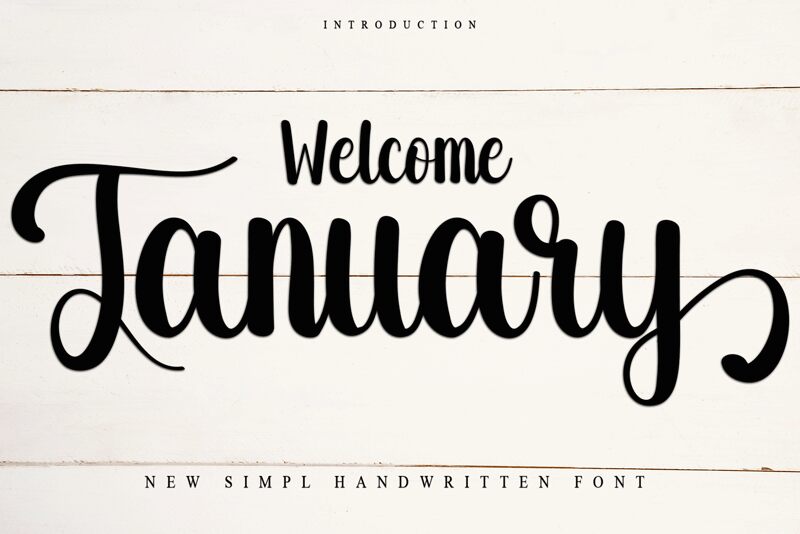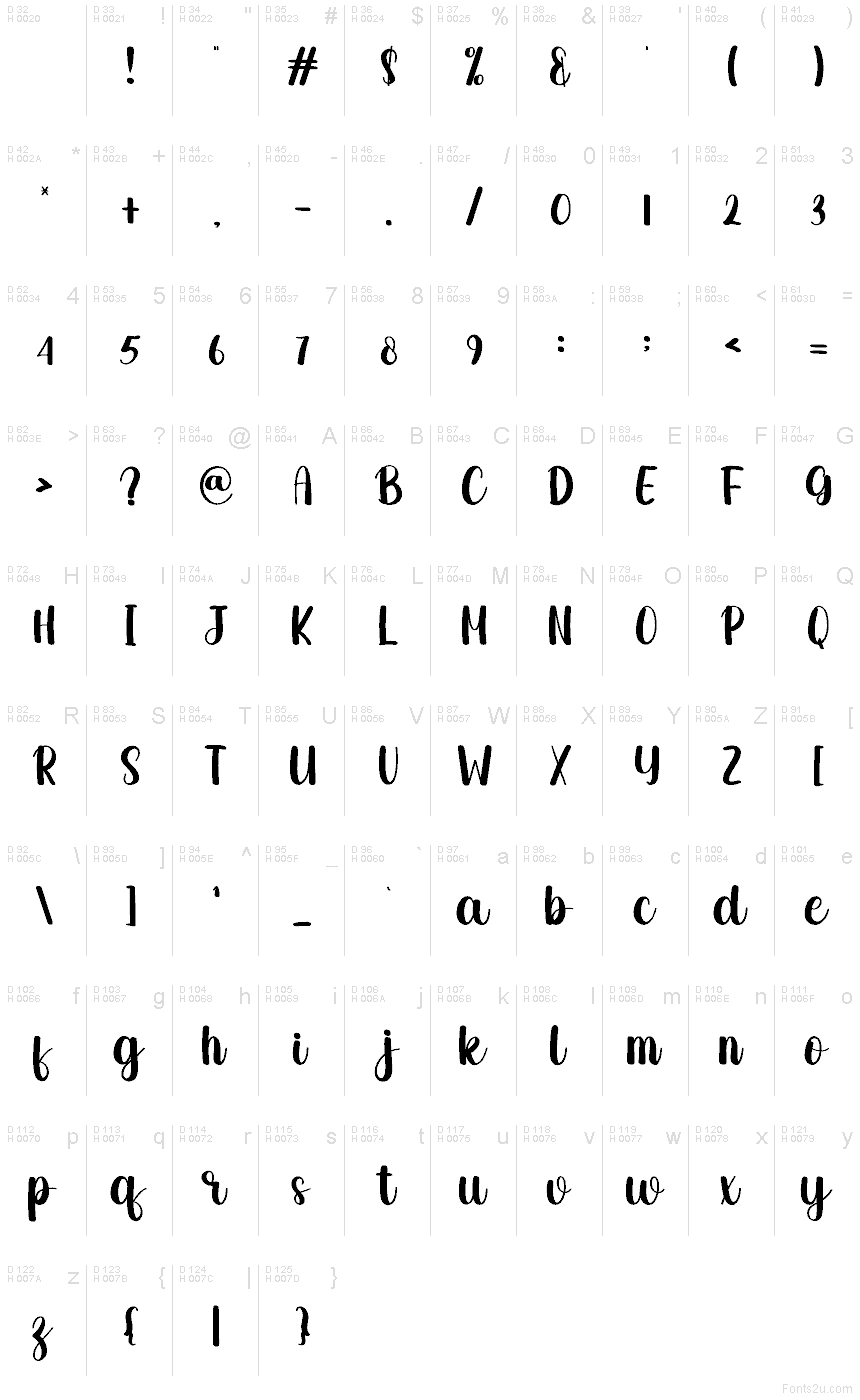
Welcome January
Welcome January font by Creatype Designer is a free brush script typeface that feels like a handwritten note on a fresh calendar page. Its bold, inky strokes have a soft bounce and gentle curves, giving every word a friendly, welcoming hug while still staying easy to read at a glance. The letters connect smoothly with just enough texture to feel hand-painted, not messy, so your layouts look crafted, not cluttered.
Using Welcome January, you can bring cozy personality to greeting cards, seasonal promos, social media quotes, planners, packaging, and invitation suites. This free font shines on anything that needs a warm, personal touch—especially when you set it large and pair it with a clean sans serif for supporting text.